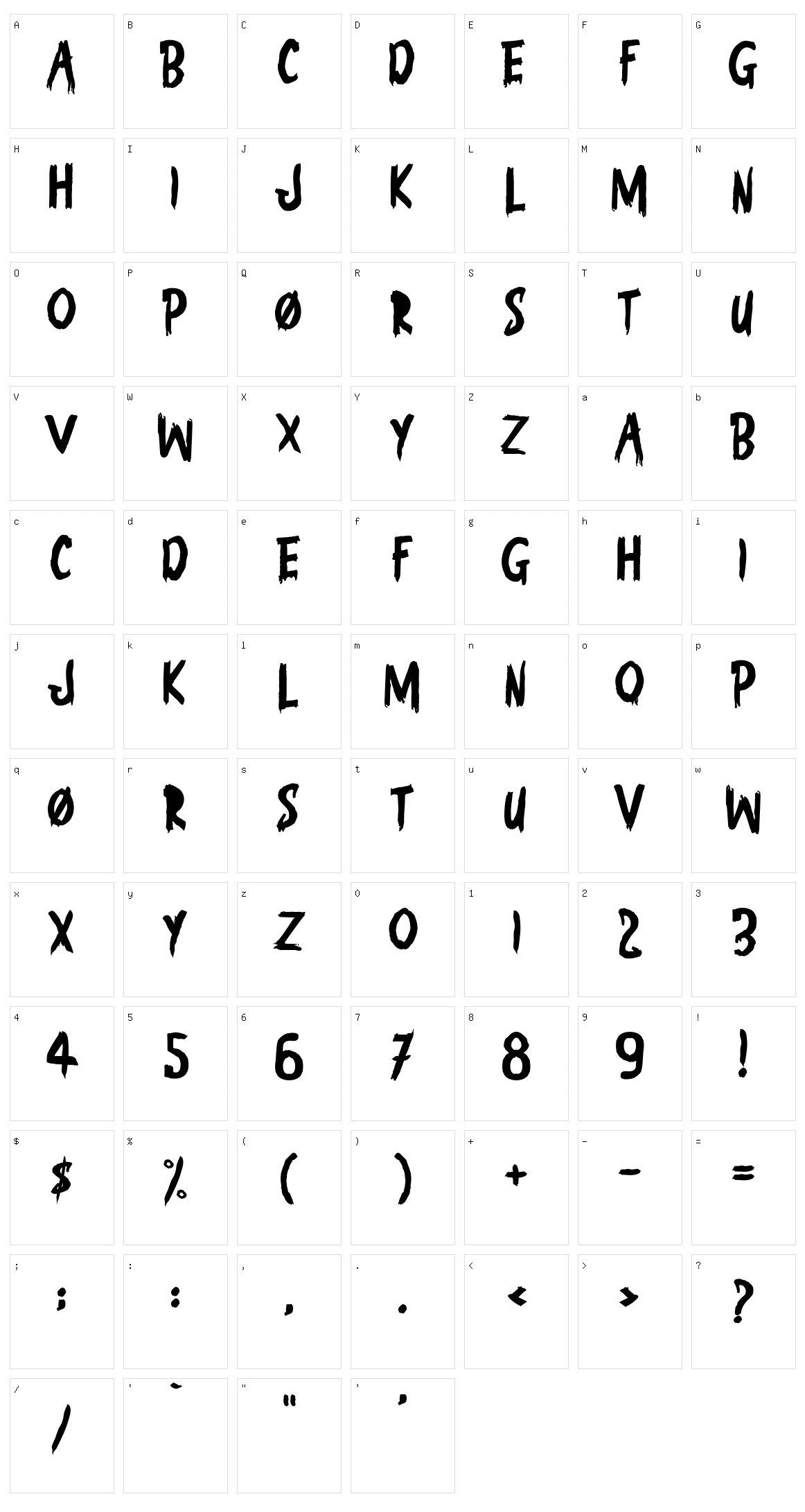
The free font The Incredible Demon is carefully designed by Octotype | Thomas Boucherie, showcasing a thoughtful balance of creativity and usability and falls under the Horror font style. When you download the ZIP file, it contains only 24.17 KB of font files, making it lightweight and quick to download. Please review the license details below to understand permitted usage and distribution rights. If license information is not available, we recommend using this font for personal projects only or contacting the author directly for commercial usage permissions.